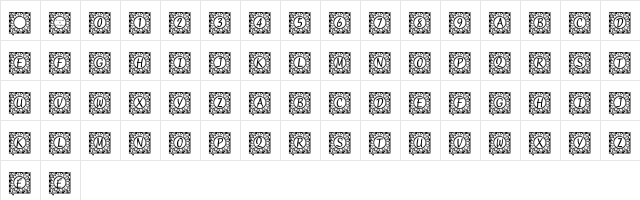
LCR Autumn Sunflowers Regular
Design Context for LCR Autumn Sunflowers
LCR Autumn Sunflowers is a composed and adaptable typeface that performs quietly and consistently across a wide range of design contexts.